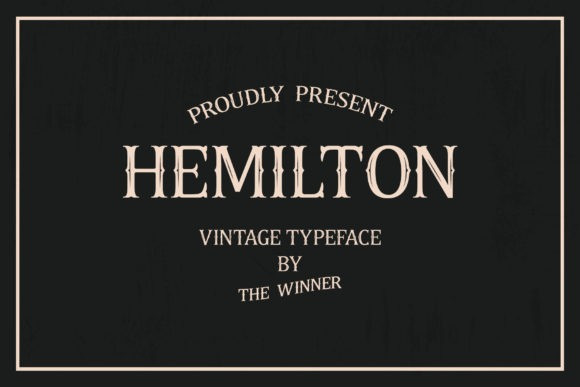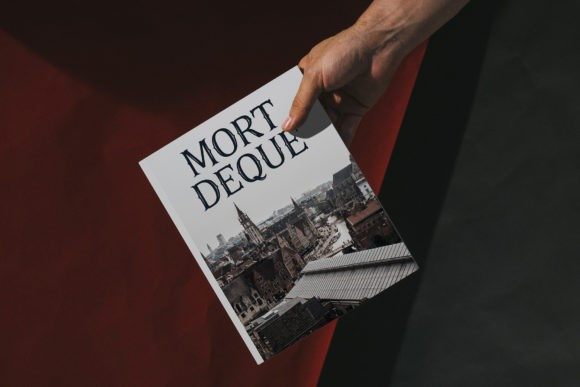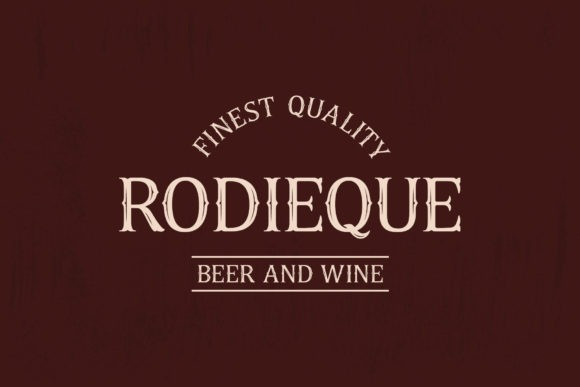
Hemilton Font
Hemilton is a vintage serif font suitable for logos, book covers, branding, invitations, posters, apparel, layout design, taglines, and many more. Add it to any of your creative projects, and it will make them come alive!